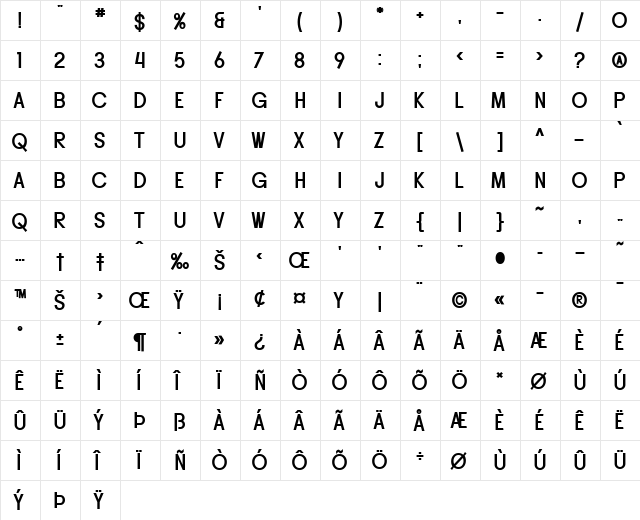
SF Buttacup Lettering Bold
Design Context for SF Buttacup Lettering Typeface
SF Buttacup Lettering offers clean, dependable letterforms without strong stylistic allegiance, making it a practical choice for designers who need flexibility. The heavy weight commands attention and anchors typographic hierarchies.